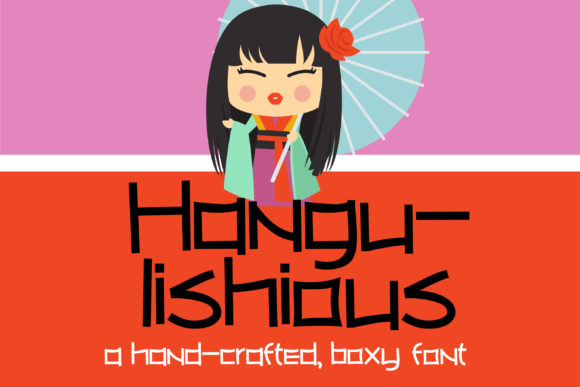
Welcome to the realm of PN Hangulishious Font, where typography meets creativity!
Unleash the power of expression with this remarkable sans serif font, meticulously crafted by the talented designers at Illustration Ink.
Dive into a world of boundless possibilities as Hangulishious effortlessly complements an astoundingly diverse range of projects. Whether you're a seasoned designer or just starting your creative journey, this font is your gateway to captivating designs that leave a lasting mark.
Step into the vibrant world of PN Hangulishious Font, where your ideas take center stage. Its playful and distinctive characters add a touch of whimsy to any project, effortlessly transforming ordinary designs into extraordinary masterpieces.
Harness the energy of Hangulishious's undeniable charm to create logos that radiate personality, posters that ignite curiosity, and social media graphics that capture hearts and minds. Its versatility extends far beyond digital realms, seamlessly gracing the pages of magazines, brochures, and packaging with its unique flair.
With PN Hangulishious Font, you'll find yourself reaching beyond the boundaries of conventional design. Its playful strokes and unexpected details spark creativity and ignite imagination, empowering you to craft designs that resonate deeply with your audience.
Dive into the world of Hangulishious and discover the endless possibilities that await. Let your vision shine brighter, your designs soar higher, and your creativity flourish like never before.